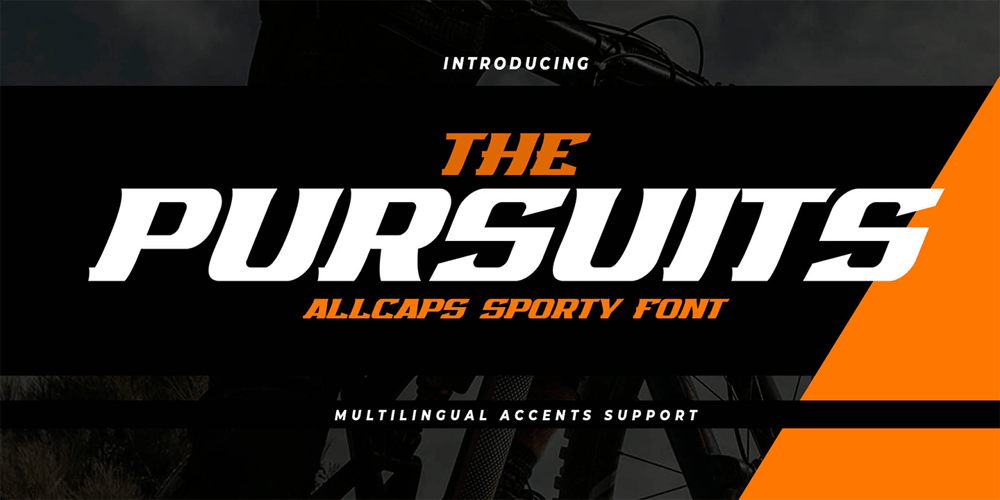
The Pursuits Font Family was designed by Abdul Malik Wisnu, Anang Fibriyanto and published by Gassstype. The Pursuits contains 1 styles and family package options. Hello Everyone, introduce our new product Font THE PURSUITS This Is All Caps Sporty Font.This is a Textured Natural Style and classy style with a clear style and dramatic movement.This font THE PURSUITS is great for your next creative project such as logos, printed quotes, and invitations.